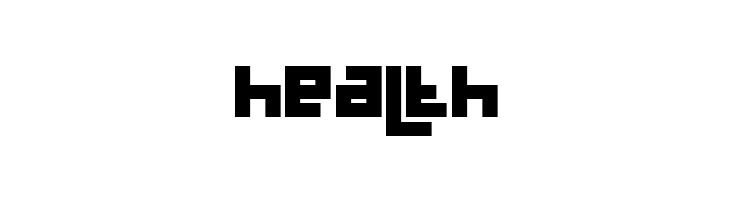
( Harry Schlender )
A playful, casual handwritten font with rounded, consistent strokes.
( Michael Cortez - www.facebook.com/schrotte )
A geometric, pixelated font with a modern, tech-inspired design.
( Vladimir Nikolic - www.coroflot.com/vladimirnikolic )
Bold, decorative font with a playful, banner-like presentation.
( Vladimir Nikolic - www.coroflot.com/vladimirnikolic )
A bold, serif font with characters on banner-like backgrounds, perfect for festive occasions.
( Xerographer Fonts - Max Infeld - xerographer.blogspot.com )
A bold, playful, hand-drawn font with a three-dimensional shadow effect.
( DaShiz )
A dotted cursive font designed for handwriting practice.
( DaShiz )
A clean, slanted handwriting font ideal for educational use.
( Fonts A Go-Go - www.postmodernvillage.com/fonts.html )
A jagged, hand-drawn font with a mechanical, inkblot-inspired style.
( London's Letters - www.londonsletters.com/ )
A bold, decorative font with a cheerleader theme, perfect for energetic and playful designs.
A bold, serif font with characters on festive banner backgrounds.
A bold, gothic blackletter font with intricate, angular designs.
An ornate, blackletter-style font with intricate detailing and a medieval flair.
A bold, geometric font with a modern yet retro feel.
A modern, bold italic font with geometric influences and rounded edges.
( Fonts by Subectype & Orenari )
A playful, bold outline font with a hand-drawn aesthetic.
( Fonts by Subectype & Orenari )
A bold, sketch-like font with a playful, hand-drawn appearance.
( Fonts by Subectype & Orenari )
A playful, hand-drawn font with bold outlines and diagonal hatching.
( Fonts by Subectype & Orenari )
A playful, bold font with a 3D shadow effect and cartoonish style.
( Fonts by Subectype & Orenari )
A bold, playful font with rounded, hand-drawn characters.
( Fonts by Subectype & Orenari )
A bold, playful font with a 3D shadow effect and hand-drawn style.
( Fonts by Subectype & Orenari )
A playful, hand-drawn font with a 3D effect and bold outlines.
( Fonts by Darrell Flood )
A playful, handwritten italic font with medium contrast and unique framed characters.
( Fonts by Darrell Flood )
A playful, handwritten font with smooth curves and a casual style.
( Fonts by DM Studio )
A bold, playful font with a 3D effect and cartoonish style.
A classic Gothic font with ornate, high-contrast letterforms.
A bold, ornate blackletter style font with intricate details and dramatic flair.
A bold, blackletter font with a medieval, Gothic style.
A bold, italic Blackletter-style font with strong, angular strokes.
A bold, dramatic blackletter style with sharp, angular strokes.
A bold, blackletter font with intricate details and a historical feel.
A lively handwritten font with fluid, dynamic strokes and a playful touch.
A refined, cursive script font with a flowing, handwritten style.
A classic handwritten font with smooth curves and a slight slant, ideal for personal projects.
( Fonts by Chequered Ink )
A playful, rounded font with bold, smooth curves and a friendly appearance.